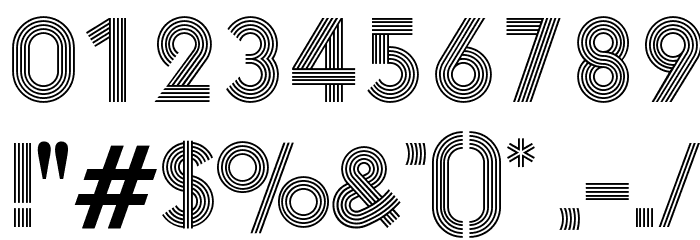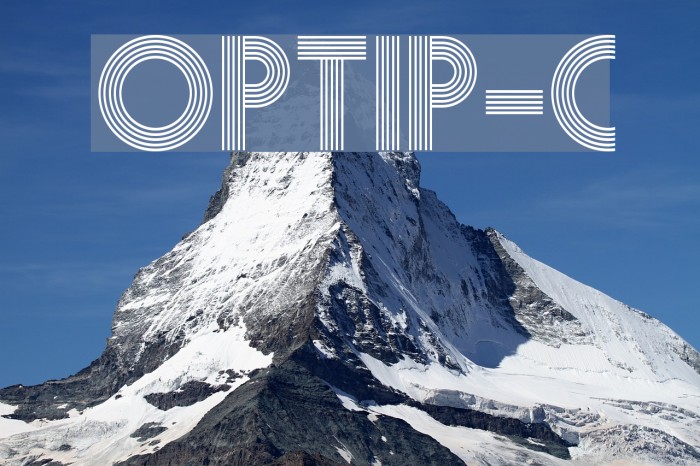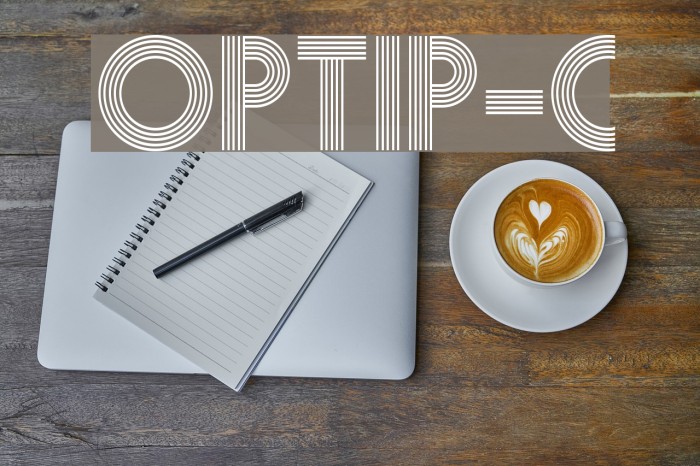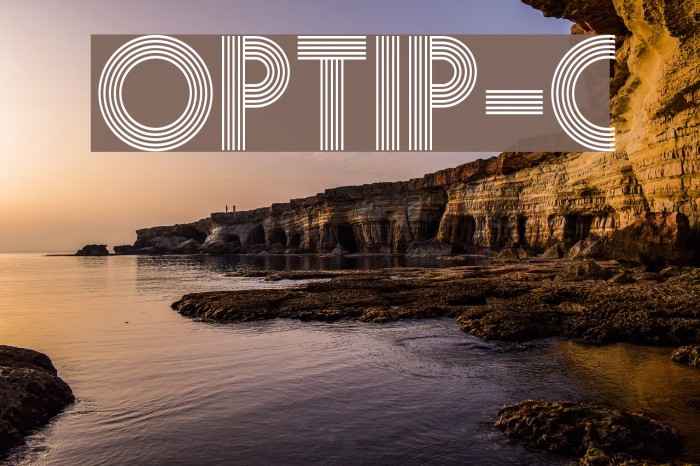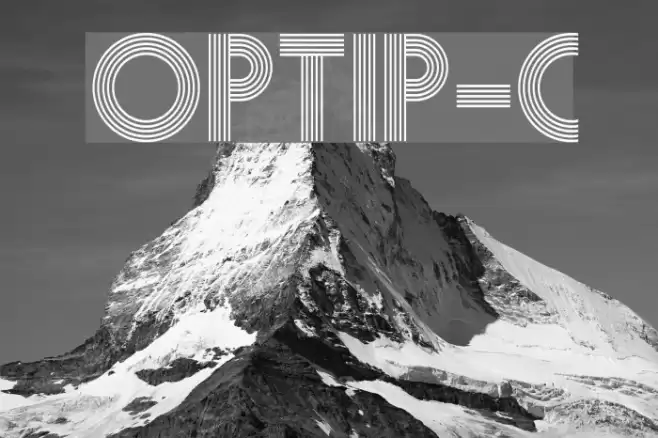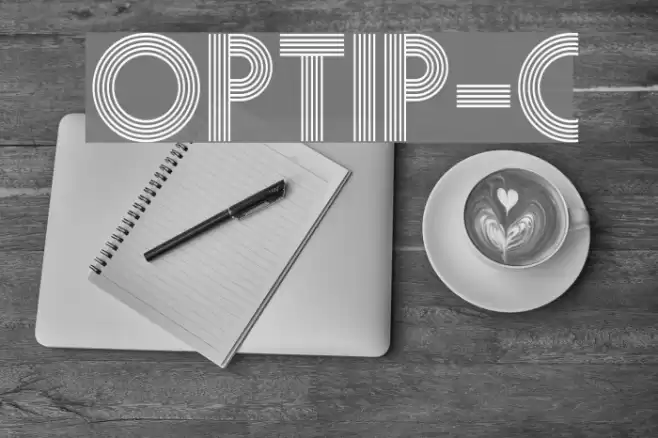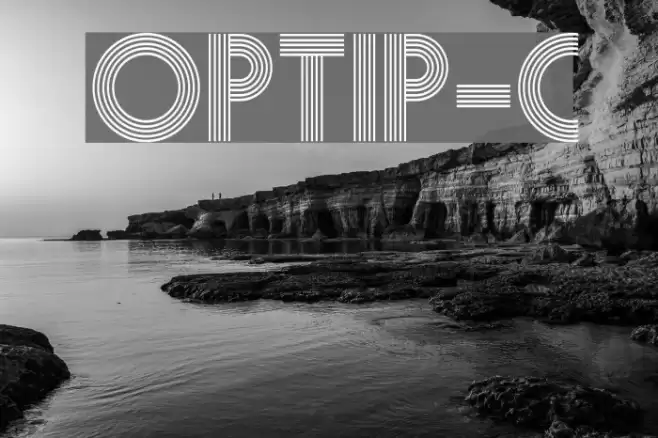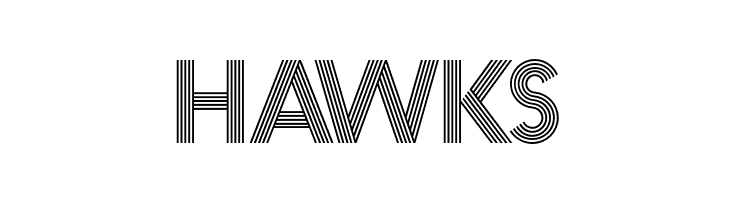
OPTIPrisma-Caps Font
This font features a striking, multi-line design that creates a sense of depth and dimension. Each character is composed of parallel lines that form a geometric pattern, giving it a unique, layered appearance. The uppercase letters are bold and structured, while the numbers and special characters maintain the same intricate line work. This font is ideal for projects that require a modern and artistic touch, as it stands out with its decorative and eye-catching style.
A bold, multi-line decorative font with geometric patterns.
- Proposed Projects: Ideal for posters, logos, album covers, and any design needing a bold, artistic flair.